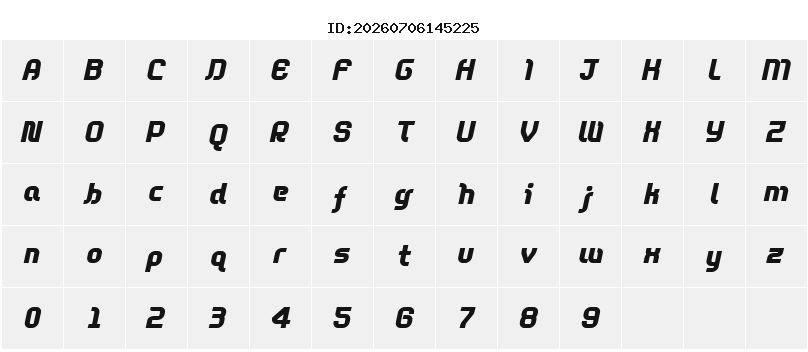
DieppeBold Oblique Preview
• Font Name: DieppeBold Oblique
• Full Font Name: DieppeBold Oblique
• PostScript Name: DieppeBoldOblique
About DieppeBold Oblique.ttf
DieppeBold Oblique.ttf is a modern, elegant sans-serif font designed for ultimate readability and visual harmony. Perfect for branding, headlines, web design, and print materials.